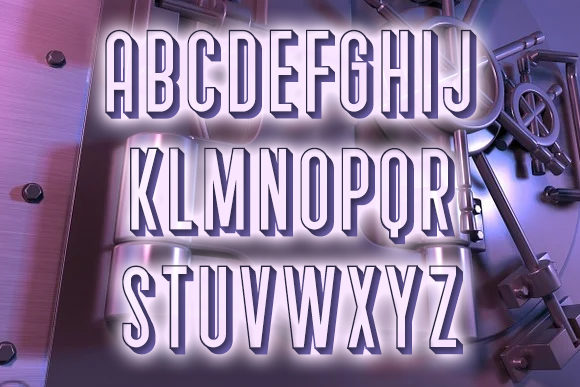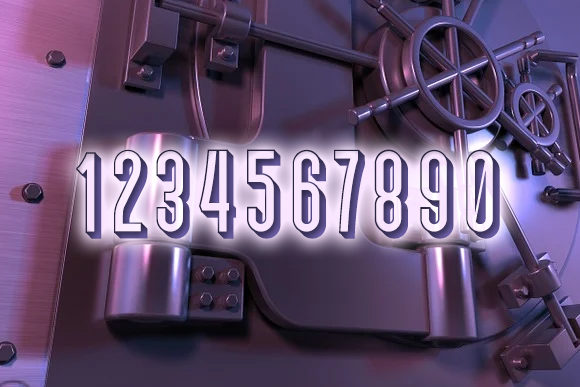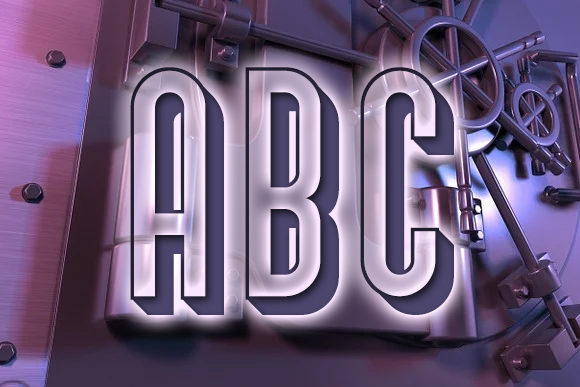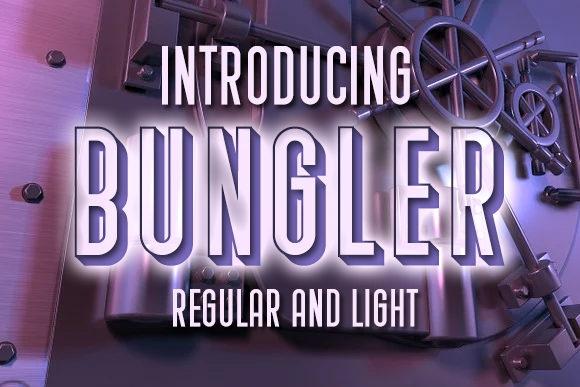
The Designer’s Delight: Unleashing the Power of Bungler Font
I’ll never forget the time I was working on a project for a client who wanted a bold, eye-catching font to make their brand stand out. I scoured the internet, trying out font after font, but nothing seemed quite right. That was until I stumbled upon Bungler Font. 💥
This bold and chunky lettered display font has been a game-changer for my design work, and I’m excited to share its awesomeness with you. In this article, we’ll dive into the world of Bungler Font, exploring its features, how to use it, and what makes it so special.
An Honest Review of Bungler Font
- ✨ Bold and Chunky: Bungler Font is perfect for making a statement. Its bold and chunky letters demand attention and make your text stand out.
- ✅ Highly Versatile: Whether you’re working on a logo, poster, or social media graphic, Bungler Font adapts seamlessly to different design contexts.
- 💡 Easy to Read: Despite its boldness, Bungler Font remains surprisingly easy to read, even at smaller sizes.
While Bungler Font is an amazing addition to any design project, there are a few things to keep in mind:
- 🤔 Limited Use Cases: Due to its bold and chunky nature, Bungler Font works best as a display font. Use it sparingly to avoid overwhelming your design.
- ⚠️ Kerning Issues: As with any font, you may encounter kerning issues when pairing Bungler Font with other fonts. Take the time to adjust the kerning to ensure a polished look.
The Backstory of Bungler Font
Bungler Font was designed with the intention of creating a bold, attention-grabbing font that’s both fun and functional. Its chunky letters and industrial feel make it perfect for designers who want to add a bit of edge to their work.
Q: What is Bungler Font best used for?
A: Bungler Font is best used for display purposes, such as headings, titles, and logos. Its bold and chunky nature makes it perfect for making a statement.
Q: Is Bungler Font easy to read?
A: Despite its boldness, Bungler Font remains surprisingly easy to read, even at smaller sizes. However, it’s still best used as a display font.